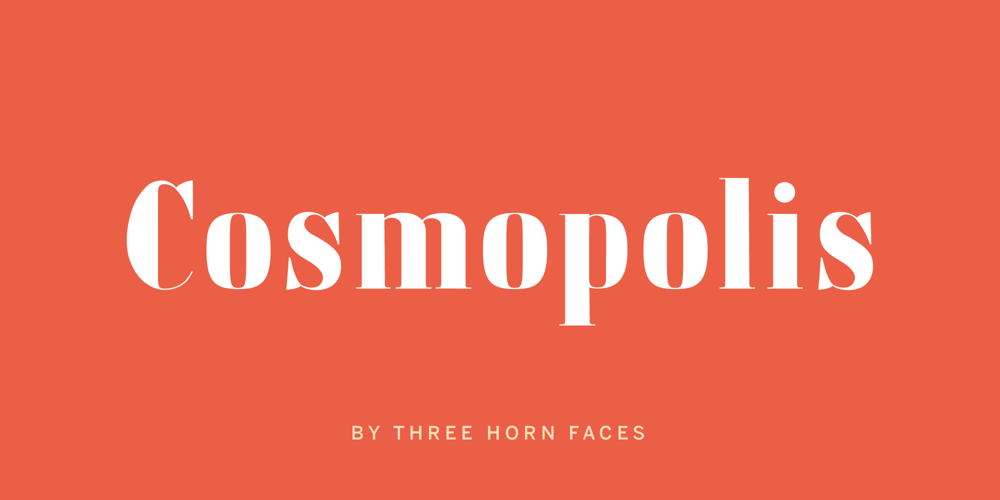
Cosmopolis
Cosmopolis font
Cosmopolis Font Family was designed by Anna Tribelhorn and published by Three Horn Faces. Cosmopolis contains 2 styles and family package options. Cosmopolis is an ideal display serif font with a strong and charismatic style. It has a classic yet contemporary look and is very suitable for branding, signage, high-impact headlines, packaging, beauty- and fashion concepts.